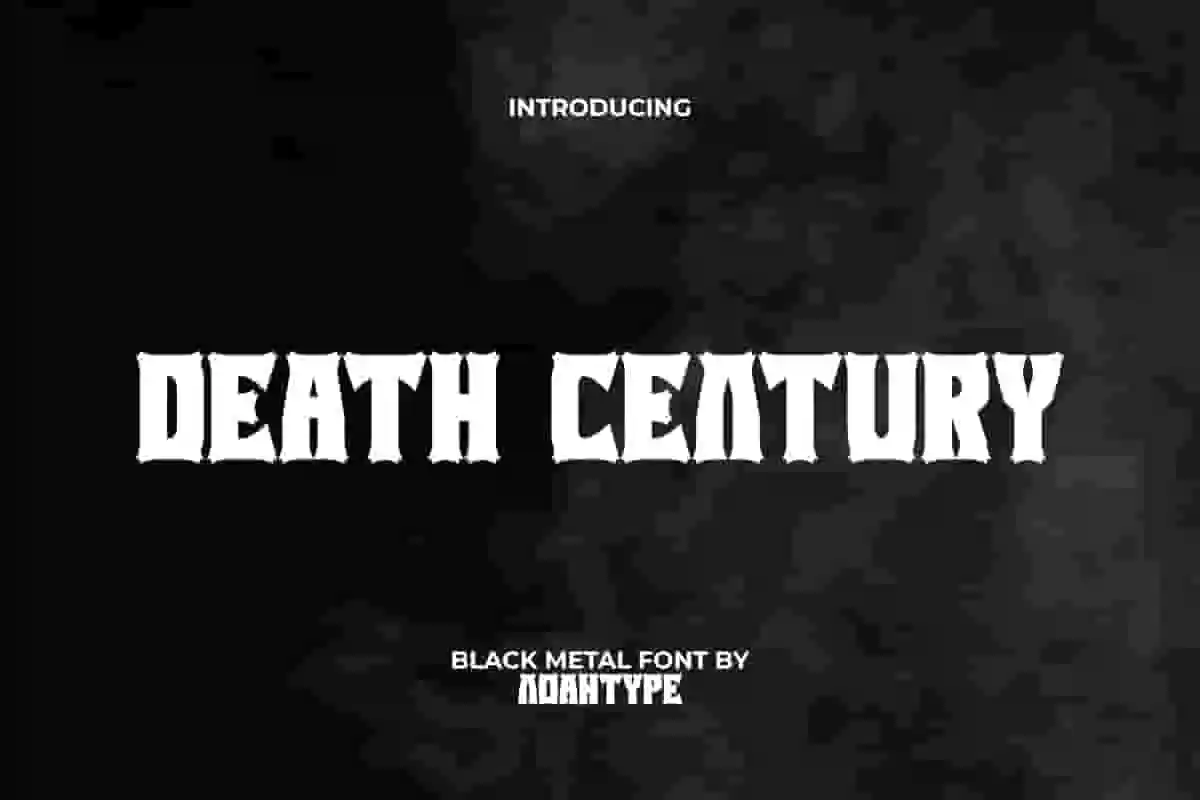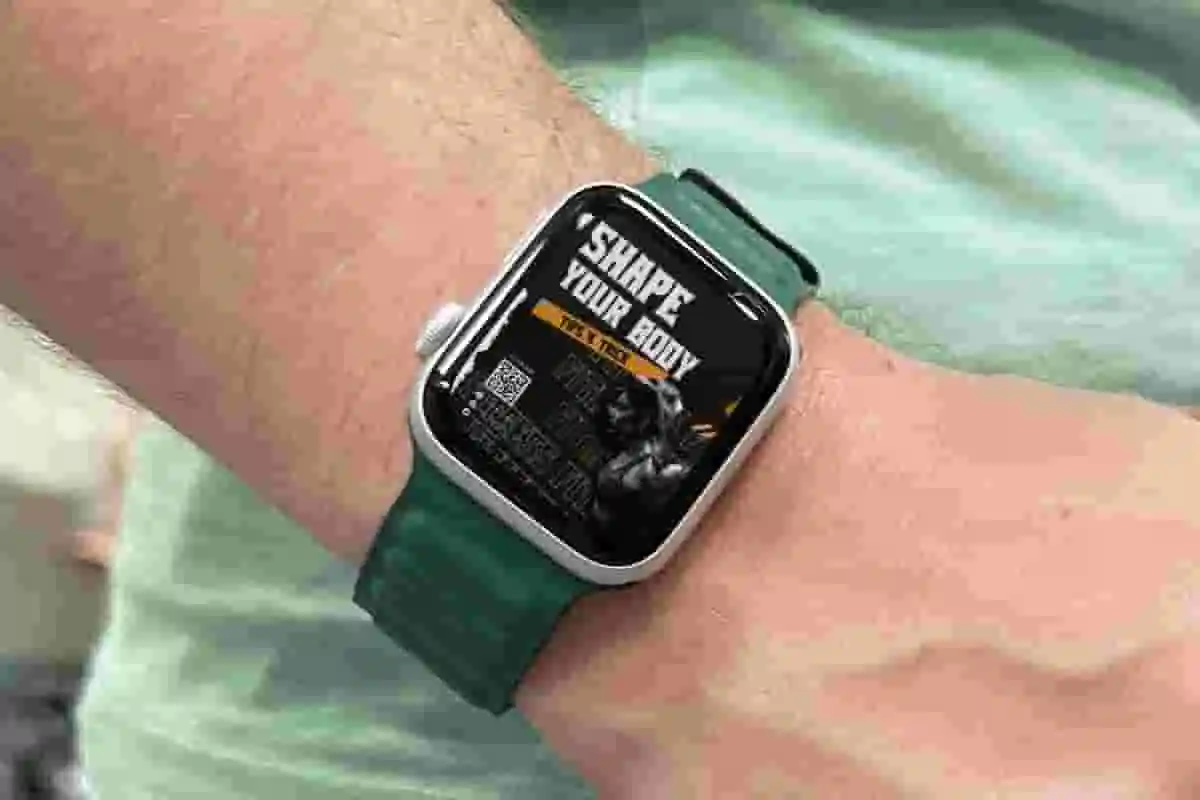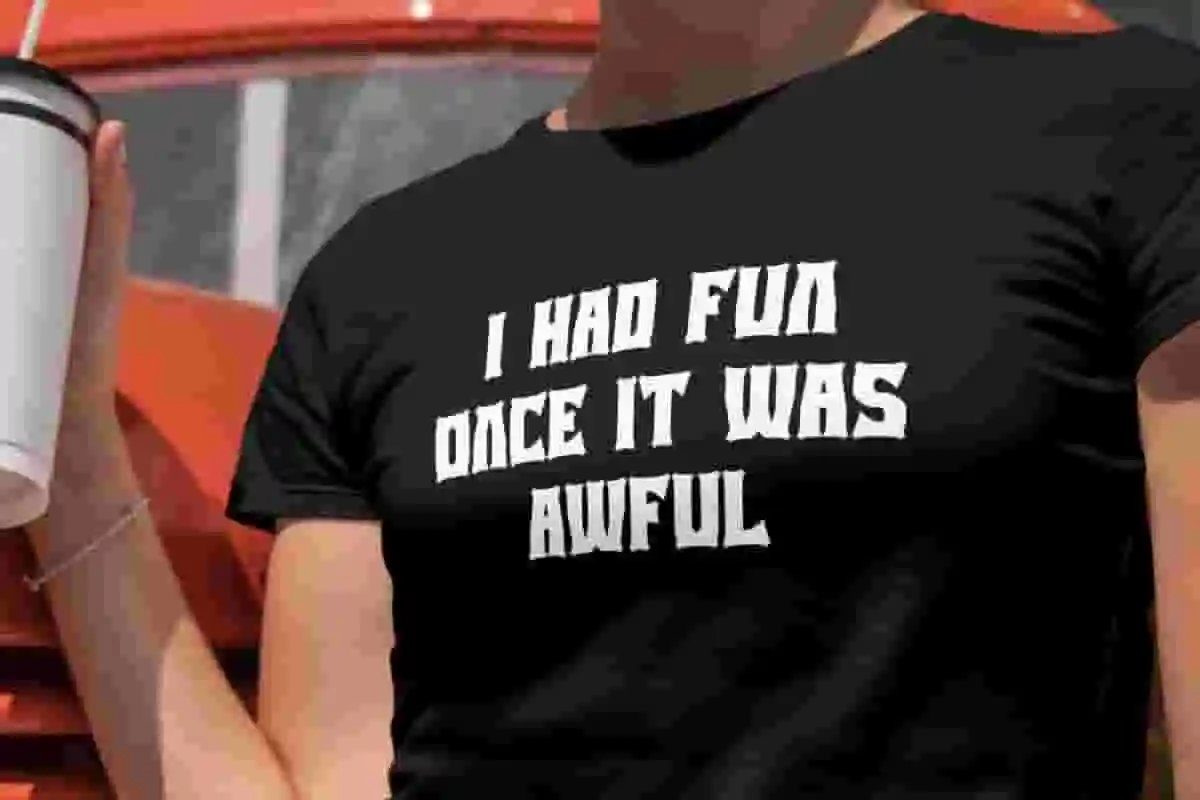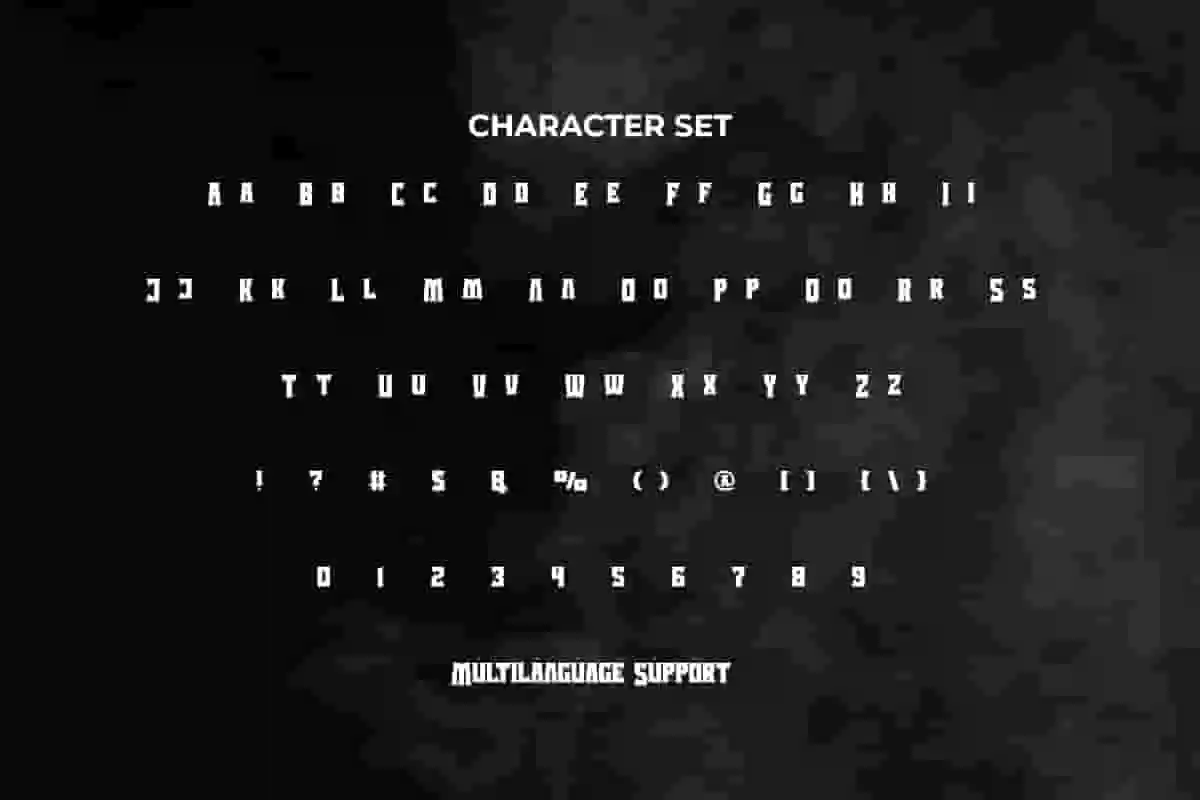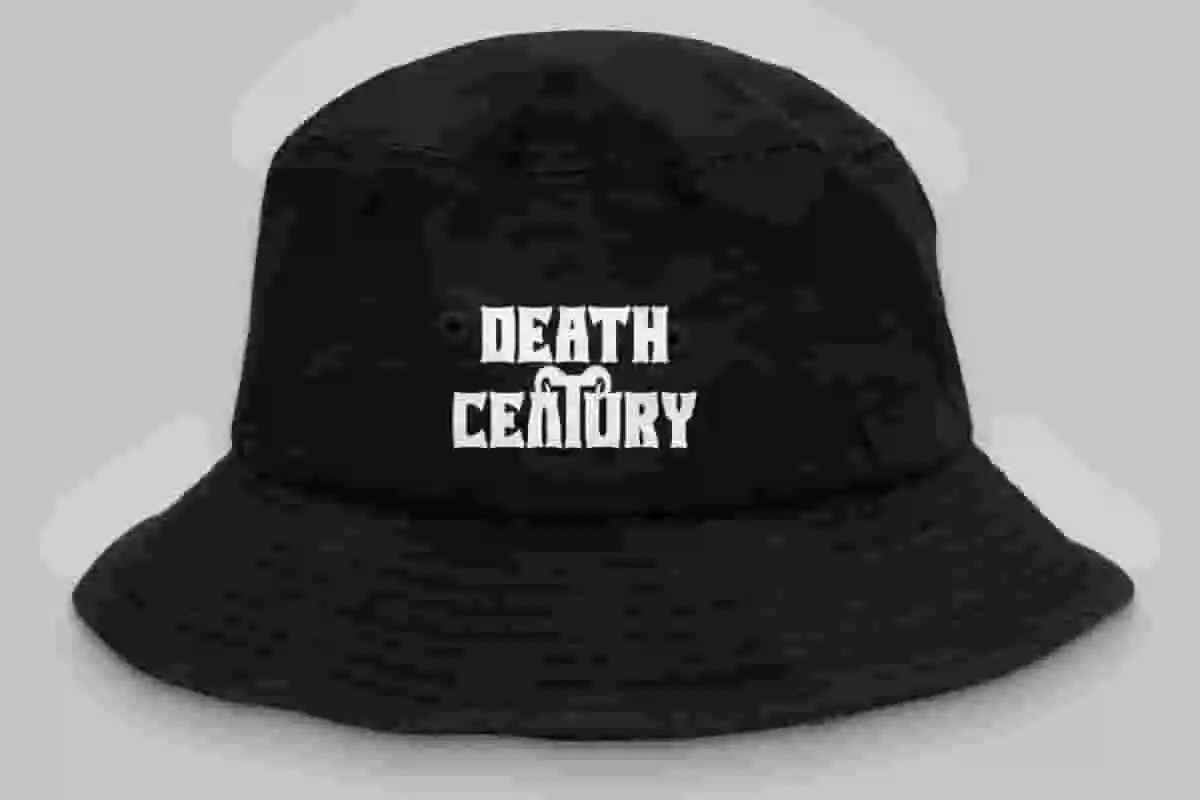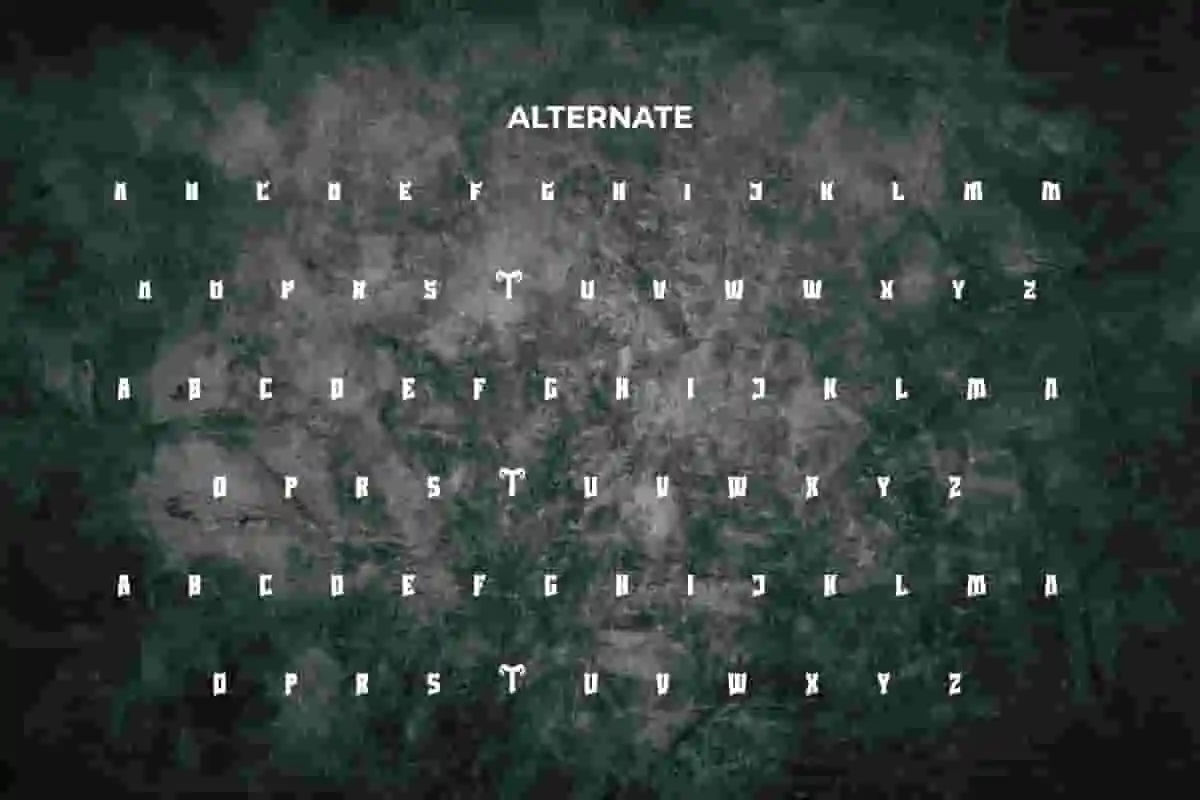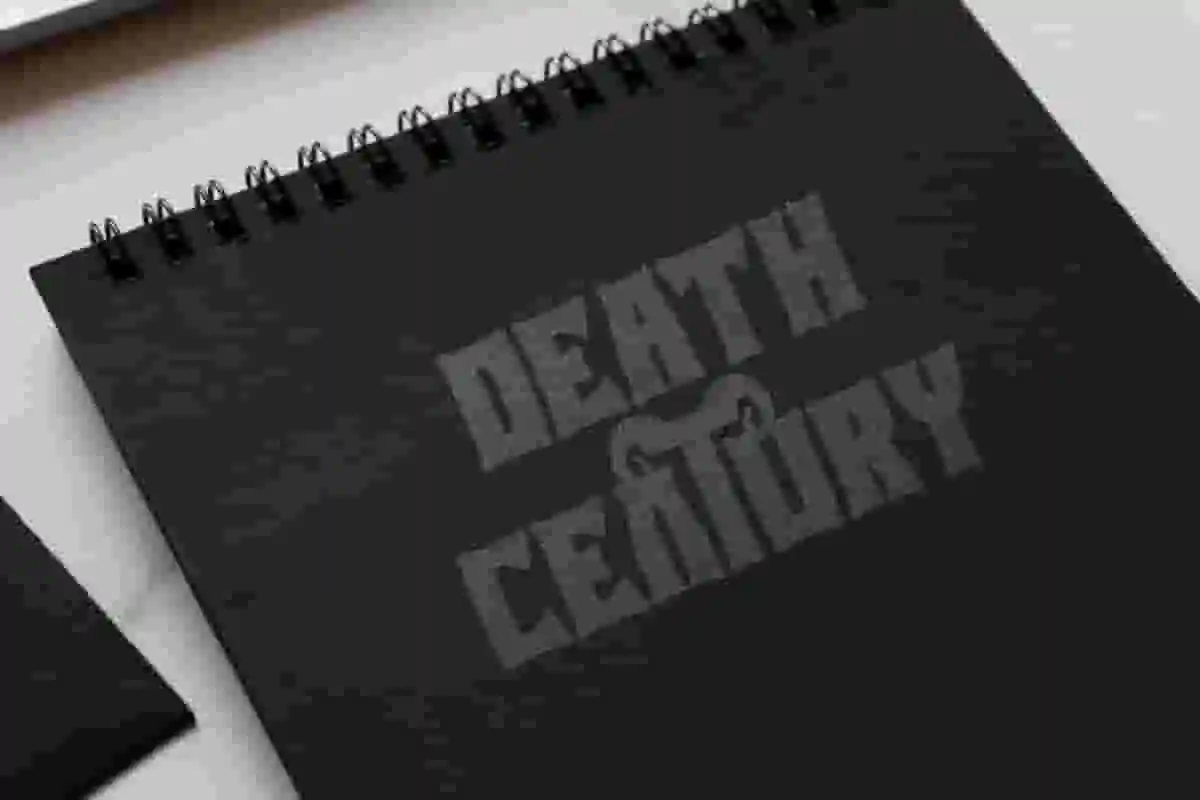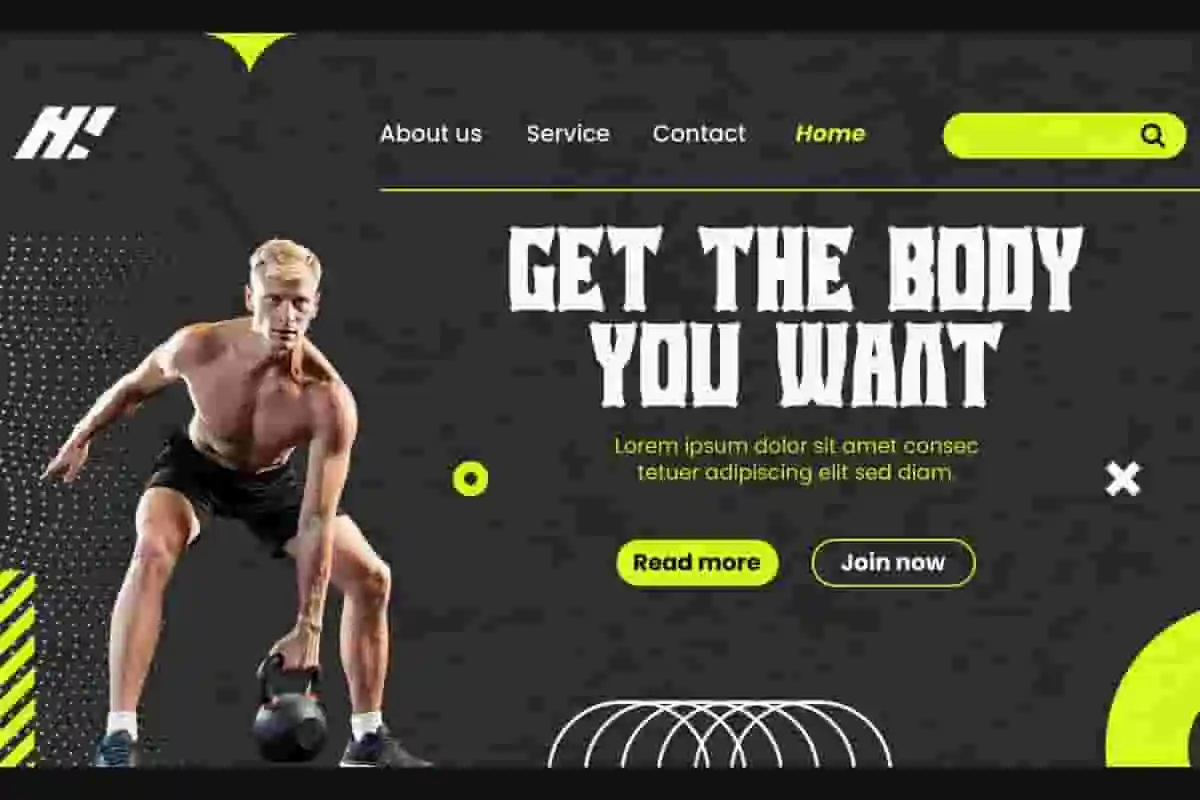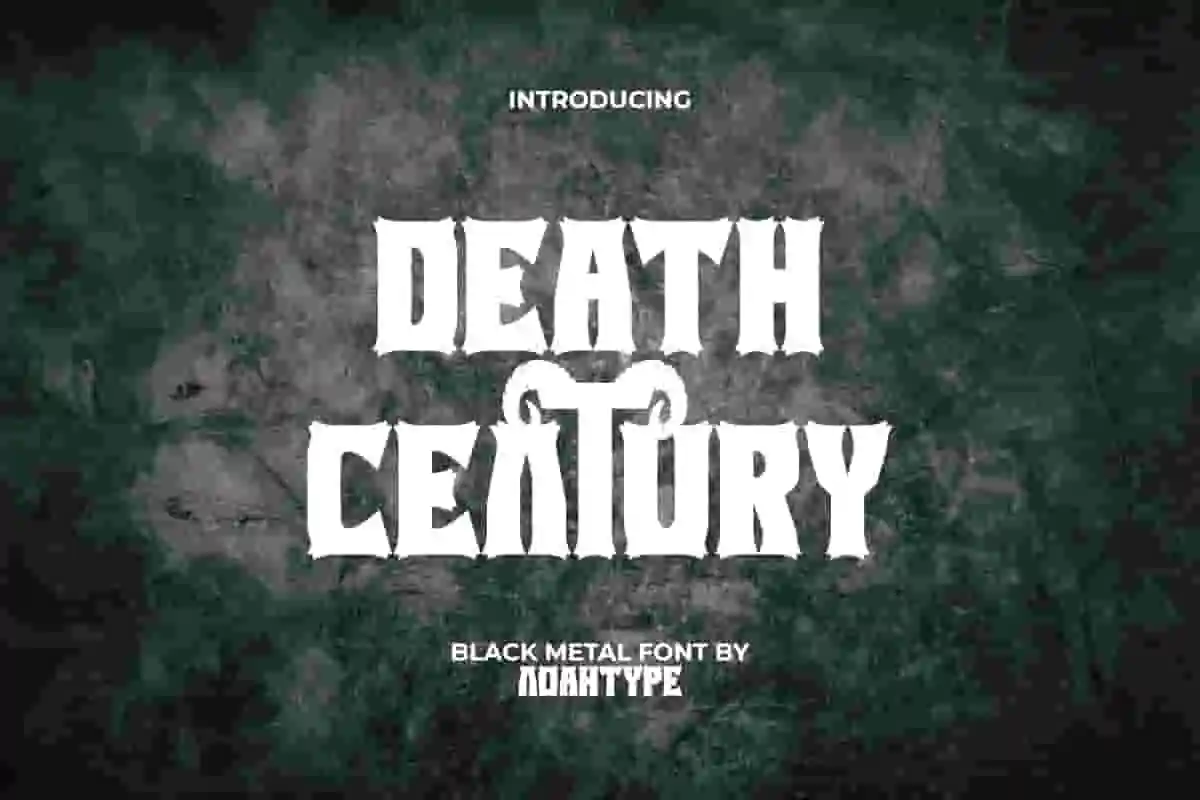
Death Century Font is a Black Metal font with a little touch of royal theme by NoahType. This font is suitable for use in film, animation, or game because it has a strong and amazing character. It will be perfect for any designs, such as custom design, brand image, poster, label, invitation, cover, marketing material, menu, printing, product packaging, quotes, signage, website, and many more!
Death Century Font includes full set of ALL CAPS for Uppercase and Lowercase Basic Characters, Numerals, Punctuation, Symbol, and Alternate character. This cool font will make your design amazing and also a perfect choice for many industries, such as game, movie, music, accessories, advertising, art, café, event or festival, fashion, printing, publishing, etc.